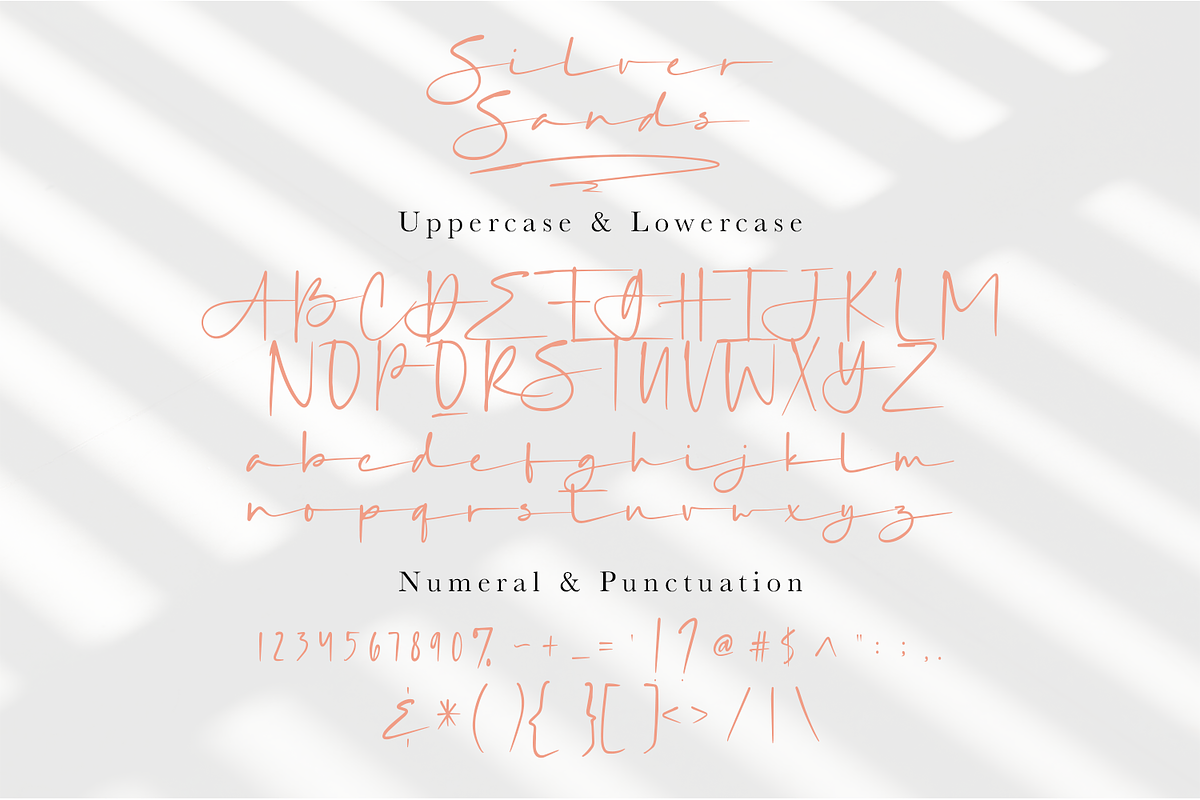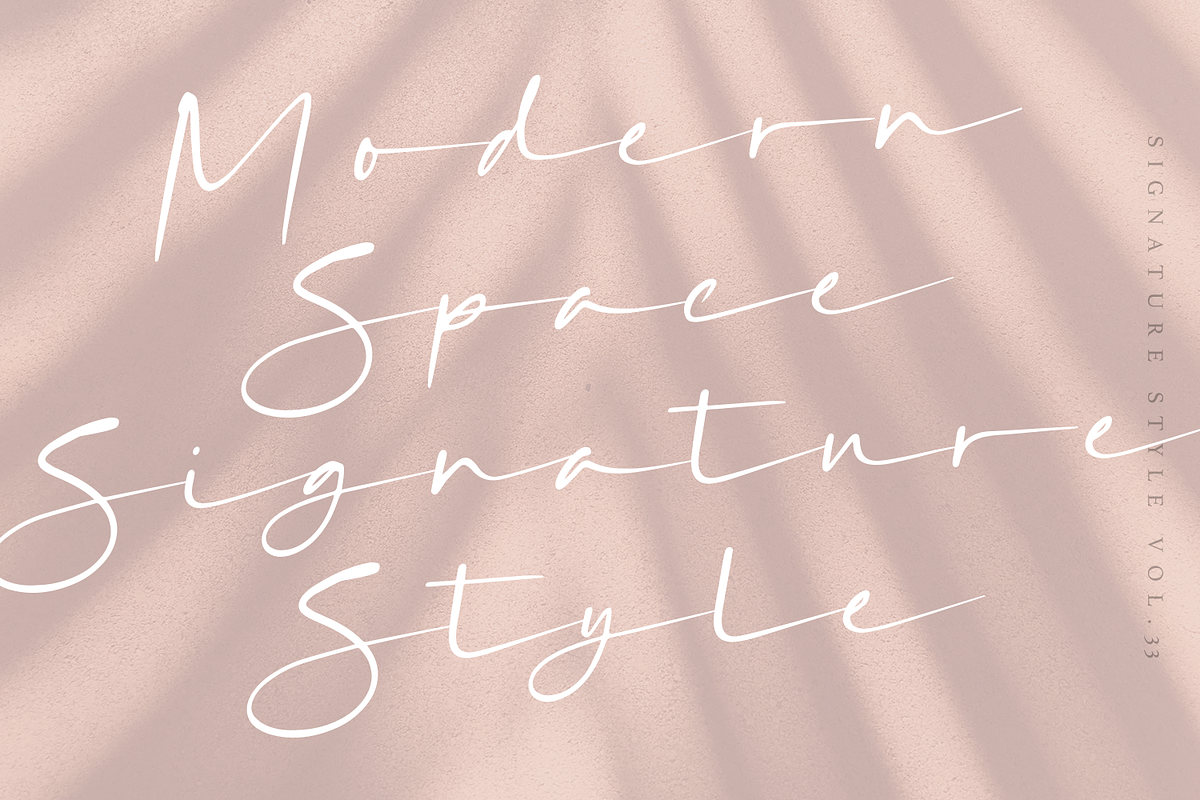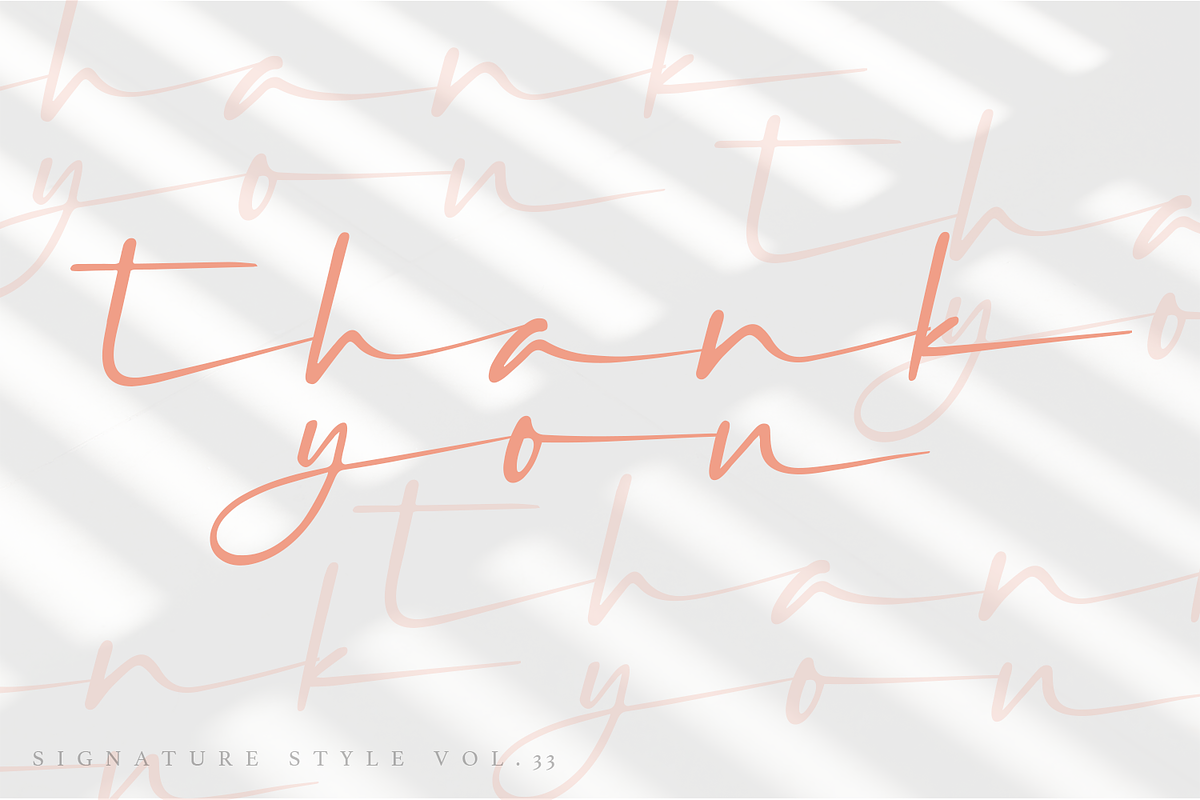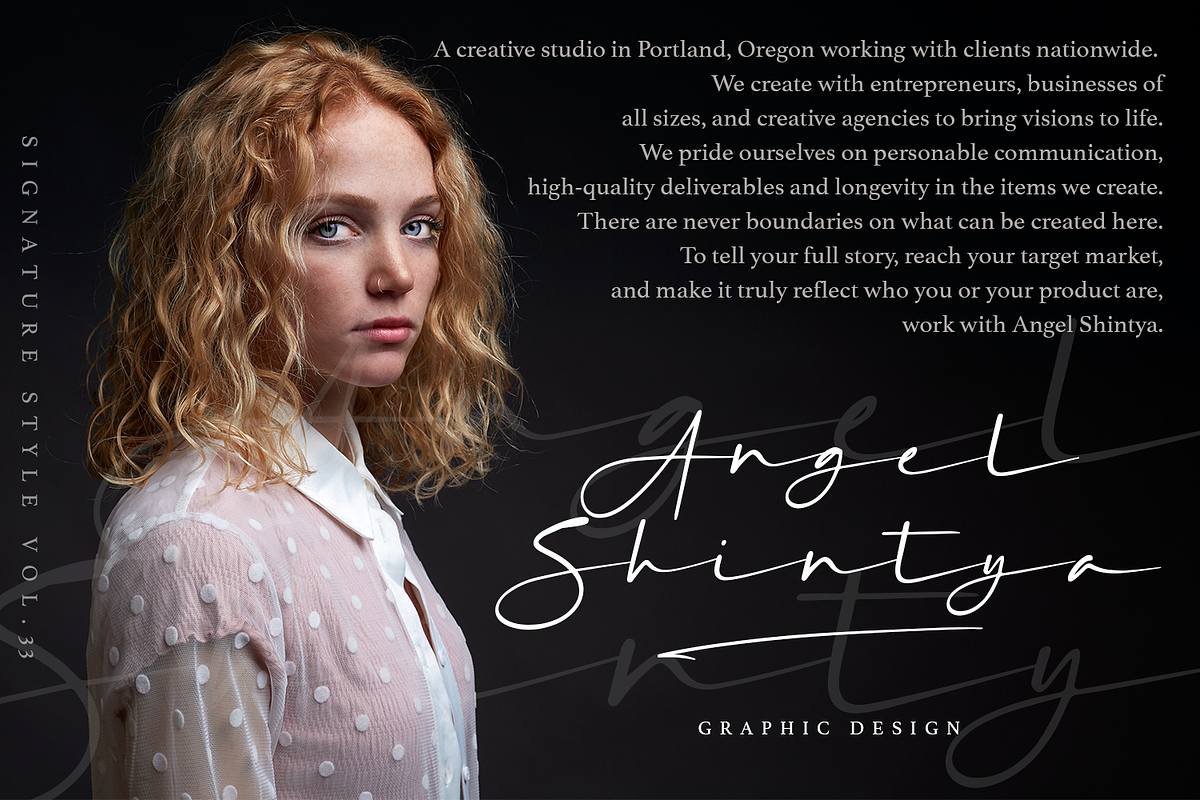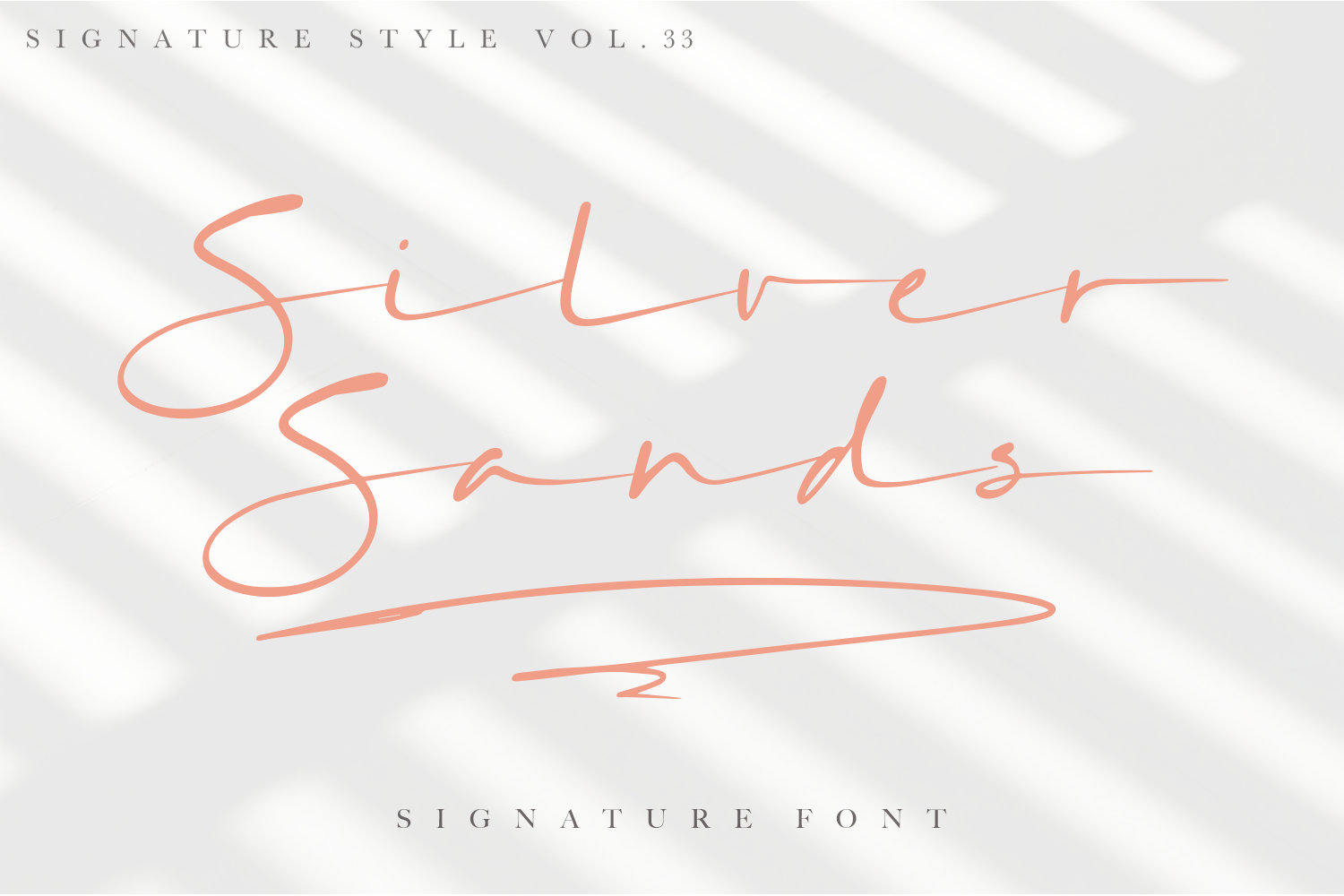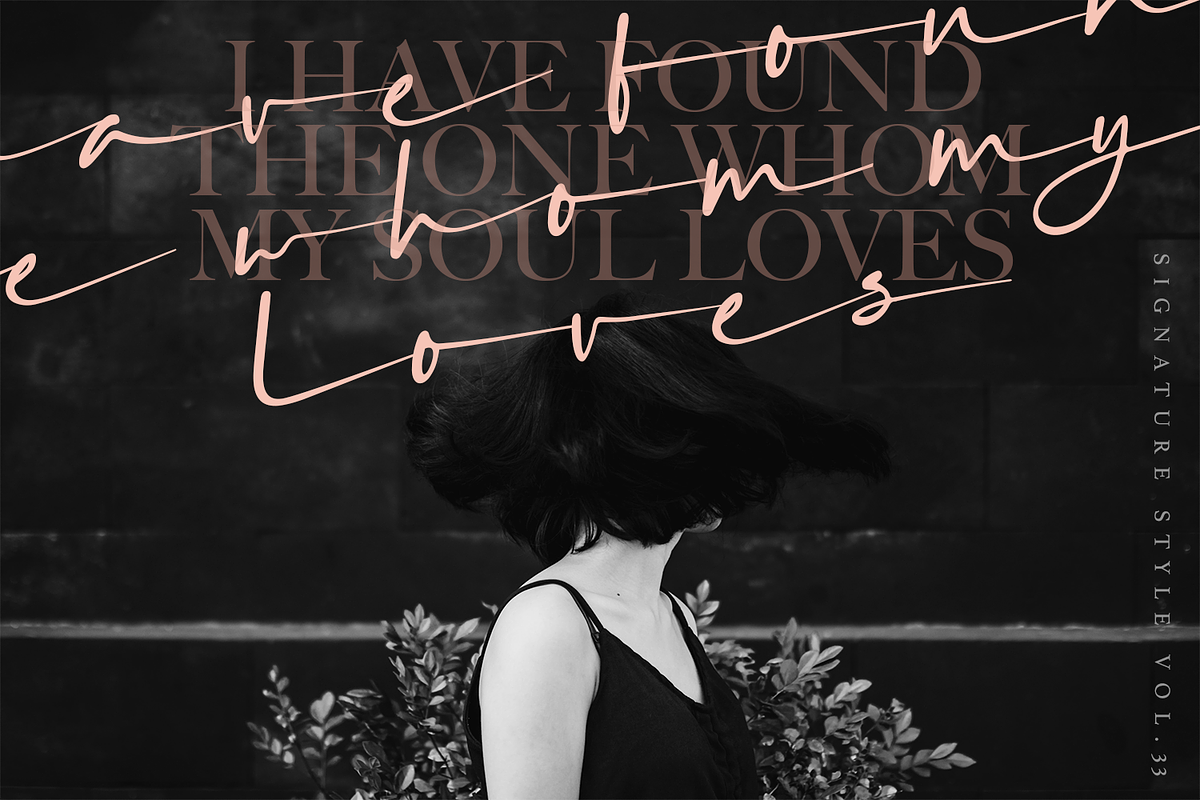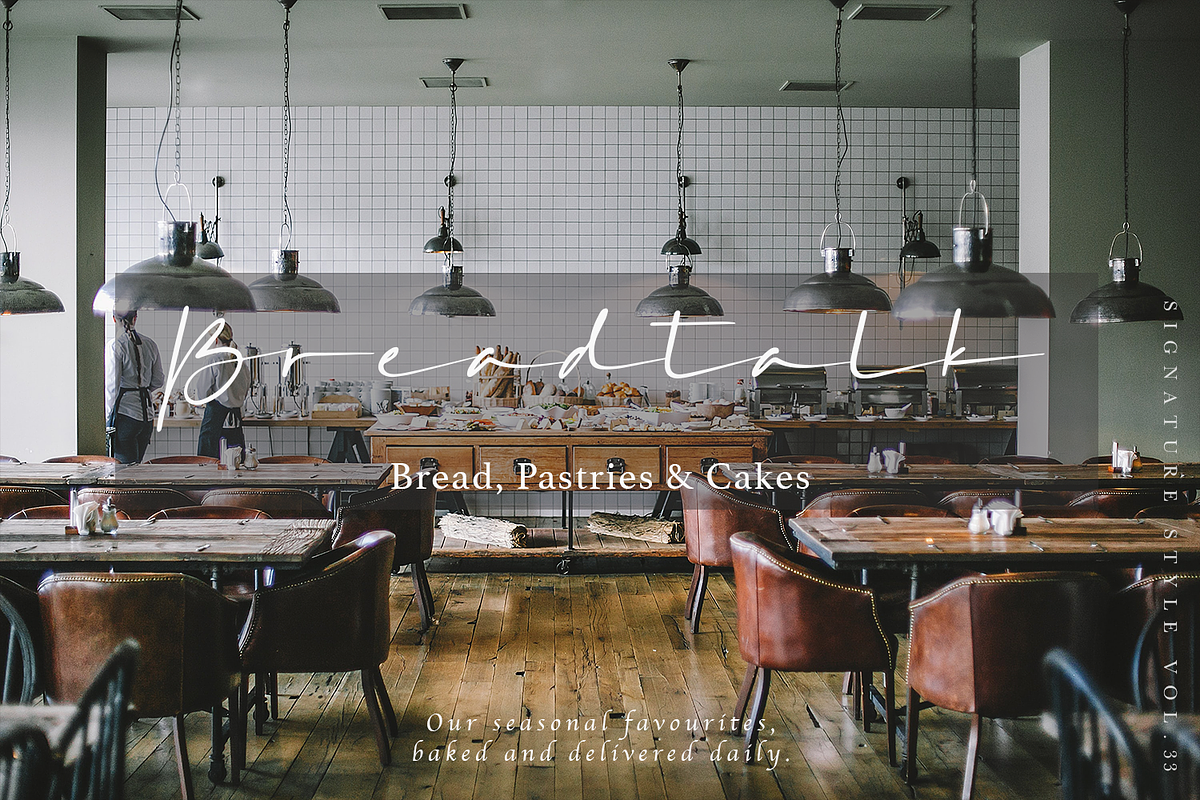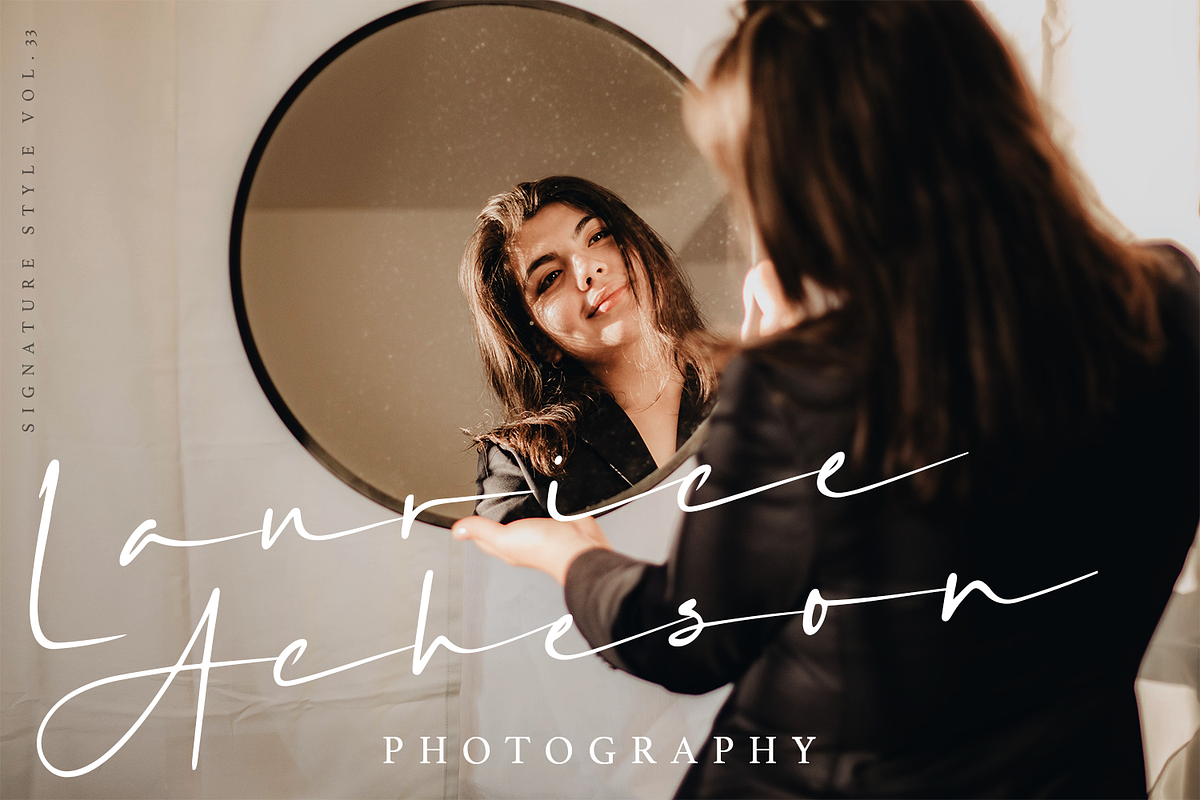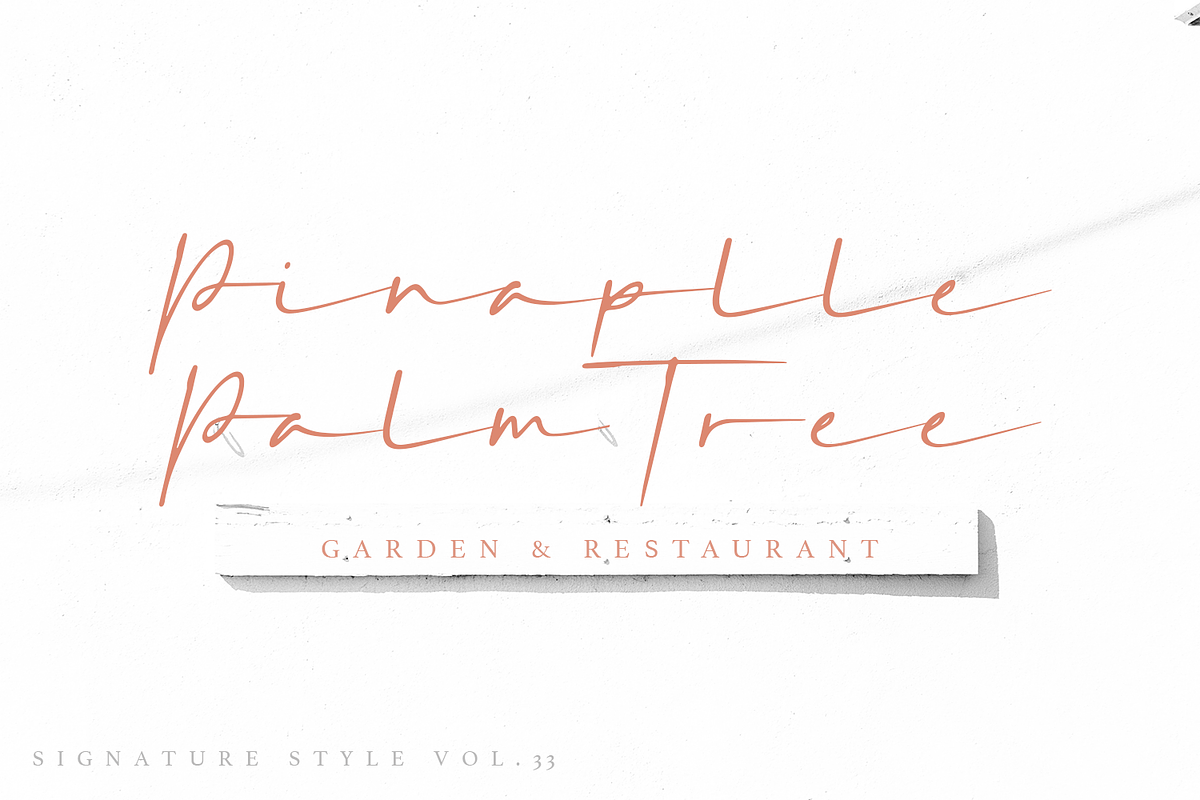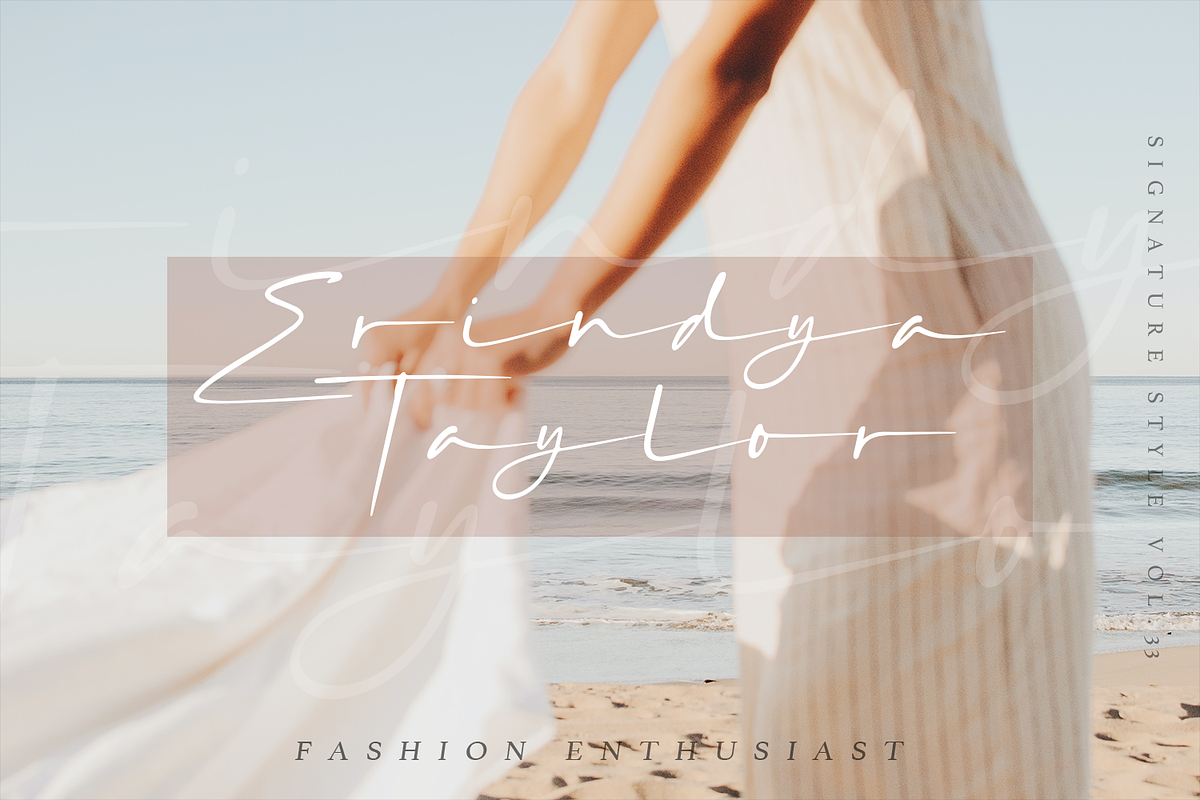
Silver Sands - Signature Font
Hi everyone, I'd like to launch a new Silver Sands font, a signature in a modern script style a great distance away. This font is made with a brush pen for perfect handwriting. Silver Sands is available with an slant version, this font has a unique character with the letters are not too close together. make the font look more beautiful.
Silver Sands can be used for various projects such as stationery invitations, social media, logos, weddings, branding, graphic design to support the project you want to work on.